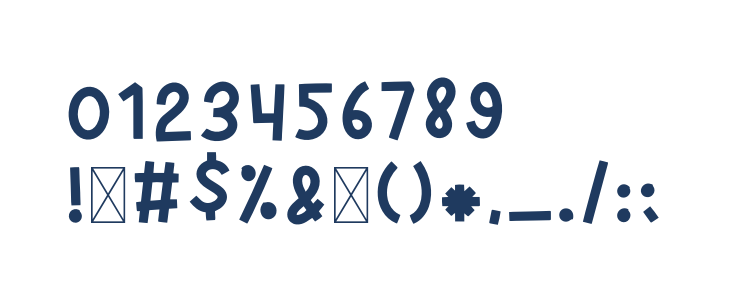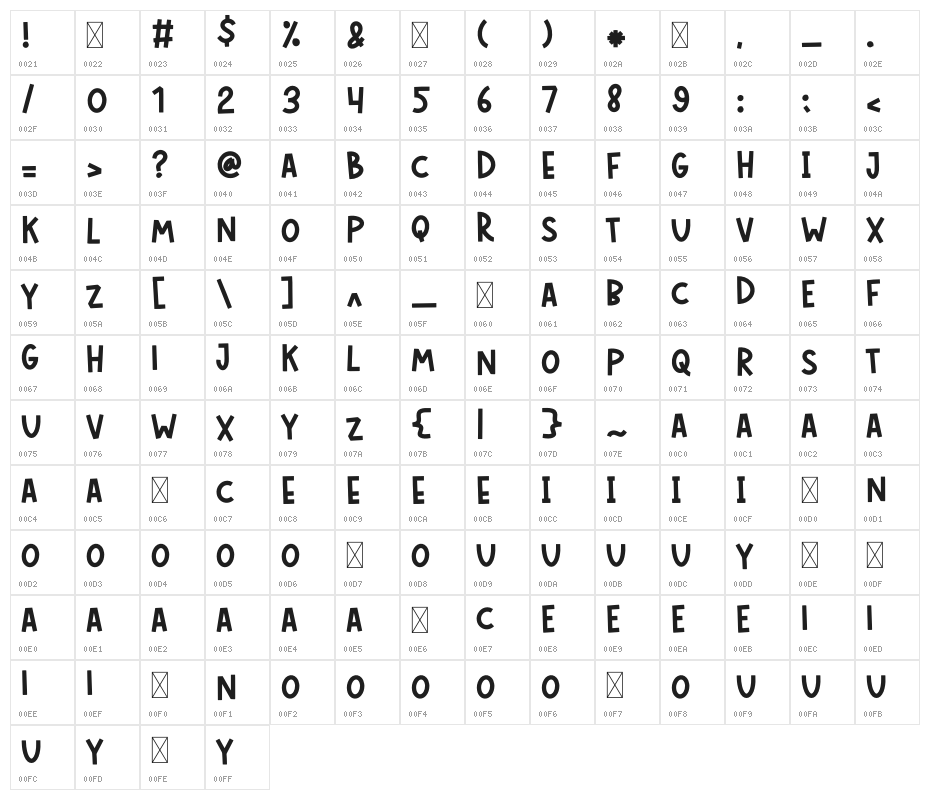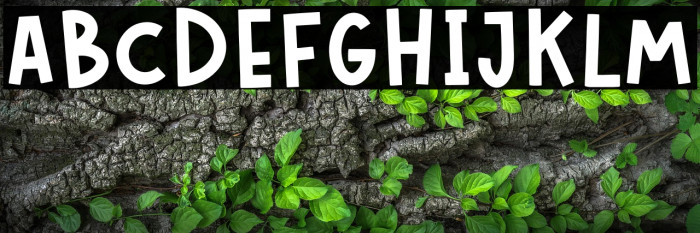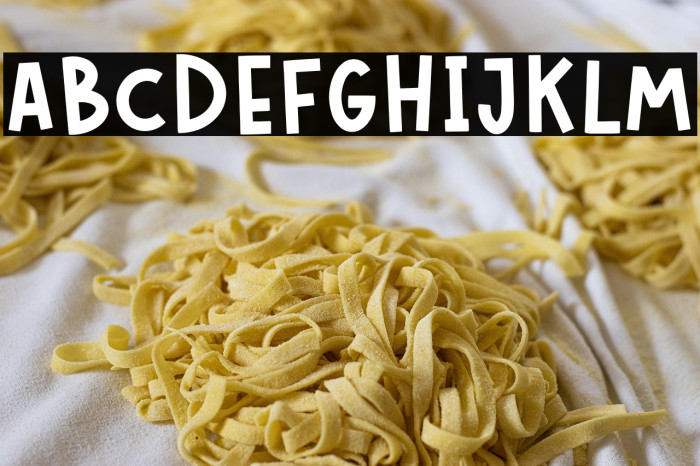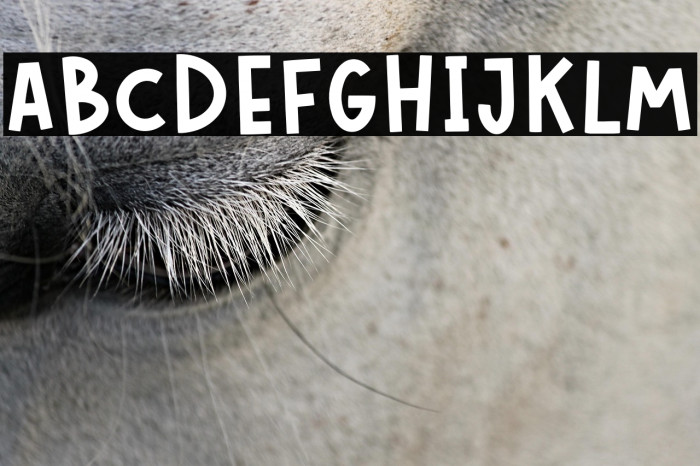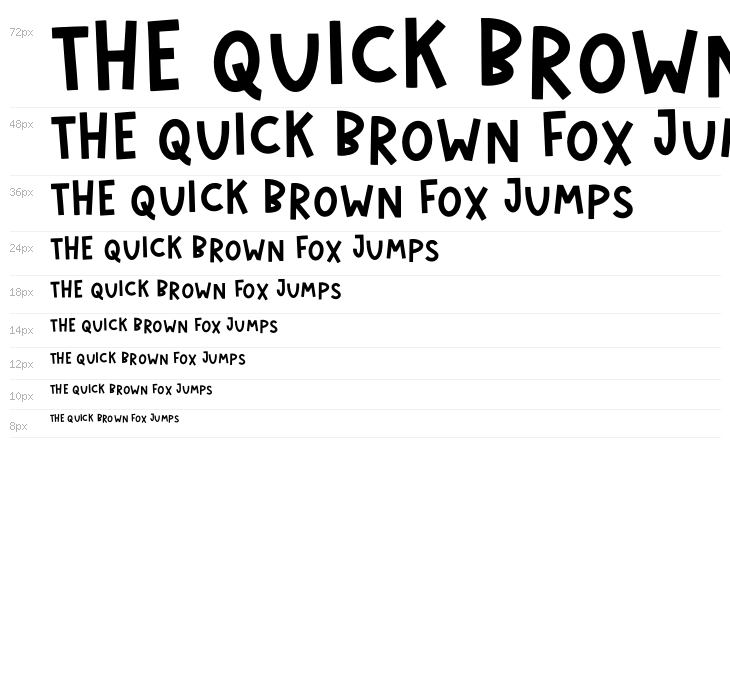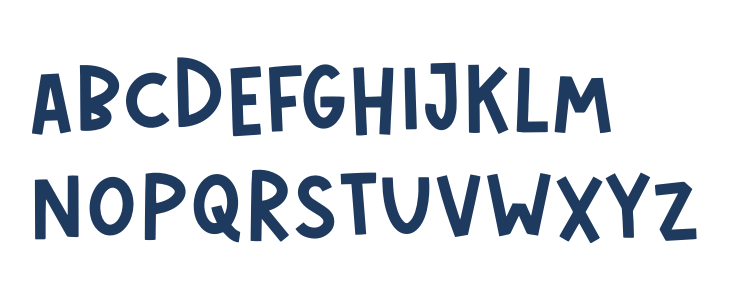
LONELY BOYS Font
LONELY BOYS Description
This font features a playful and bold style with a hand-drawn appearance. The characters are slightly irregular, giving it a casual and whimsical feel. The uppercase and lowercase letters are distinct yet maintain a cohesive look. The numbers and special characters follow the same playful design, making it suitable for creative projects. The strokes are thick and consistent, adding to its boldness. The overall design is eye-catching and ideal for projects that require a fun and informal touch.
Proposed ProjectsIdeal for children's books, playful branding, posters, and creative invitations.